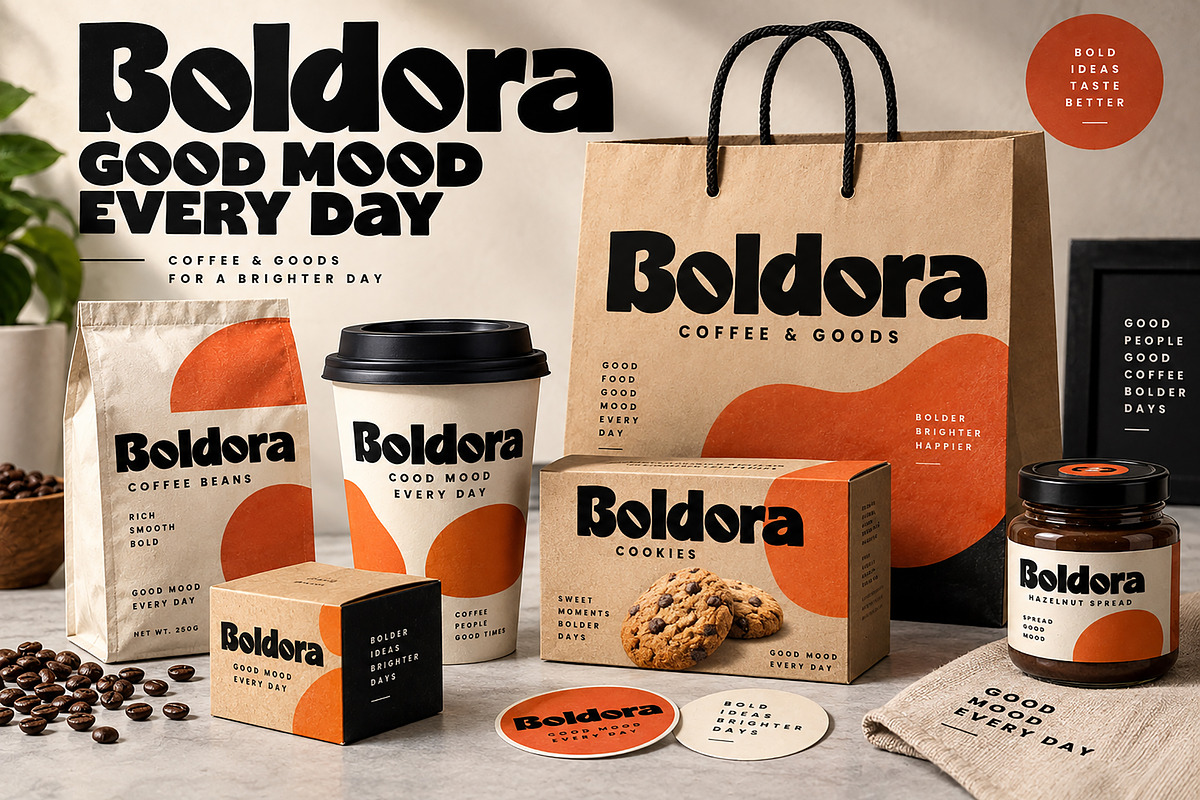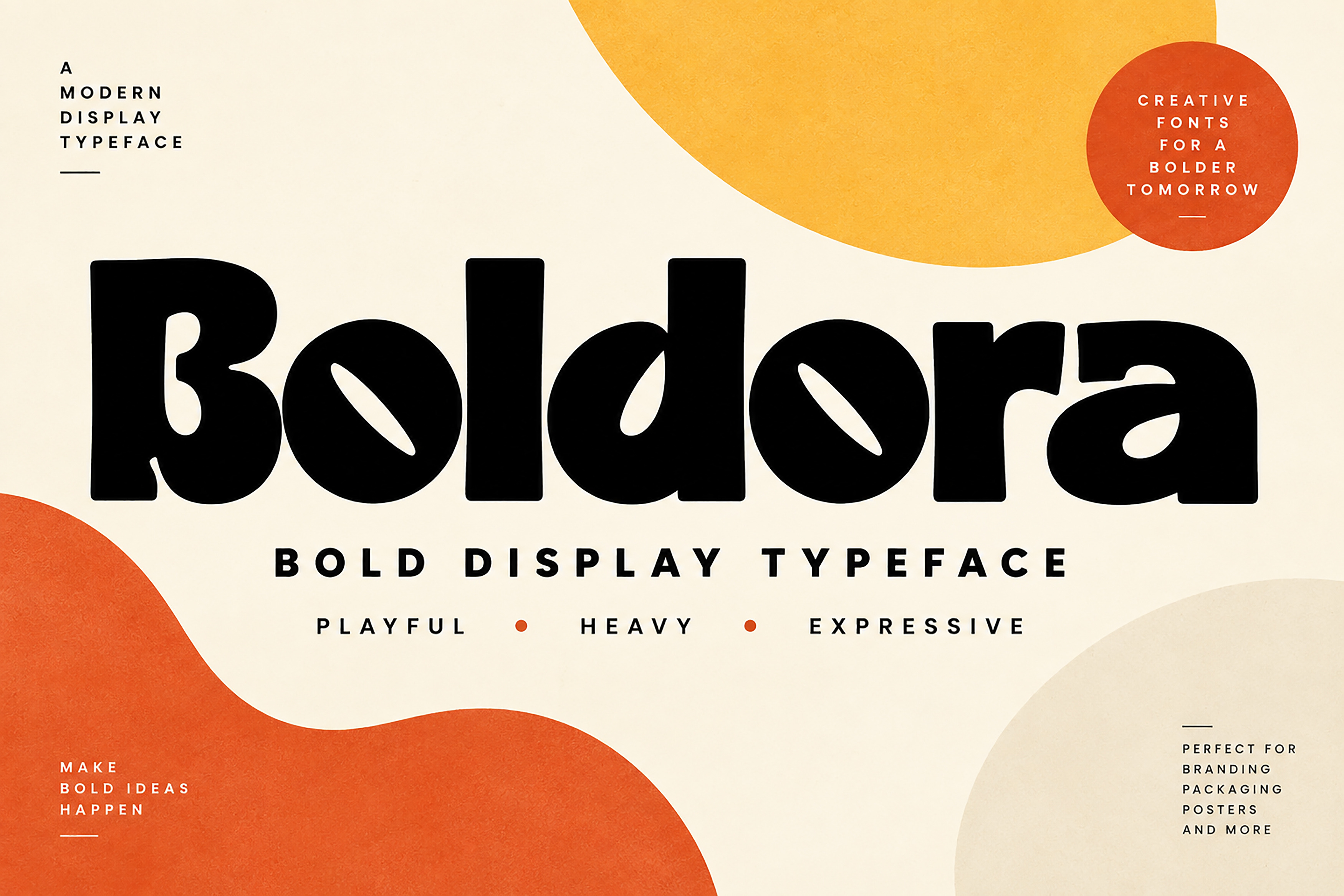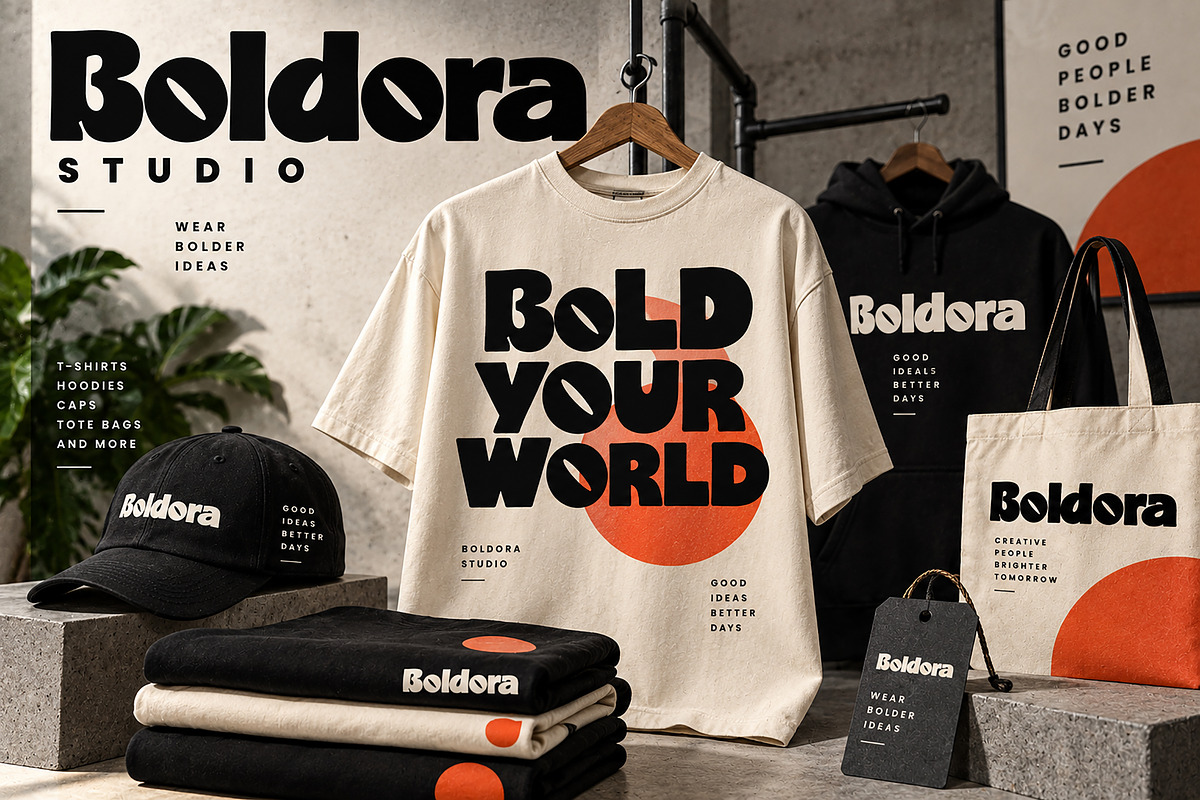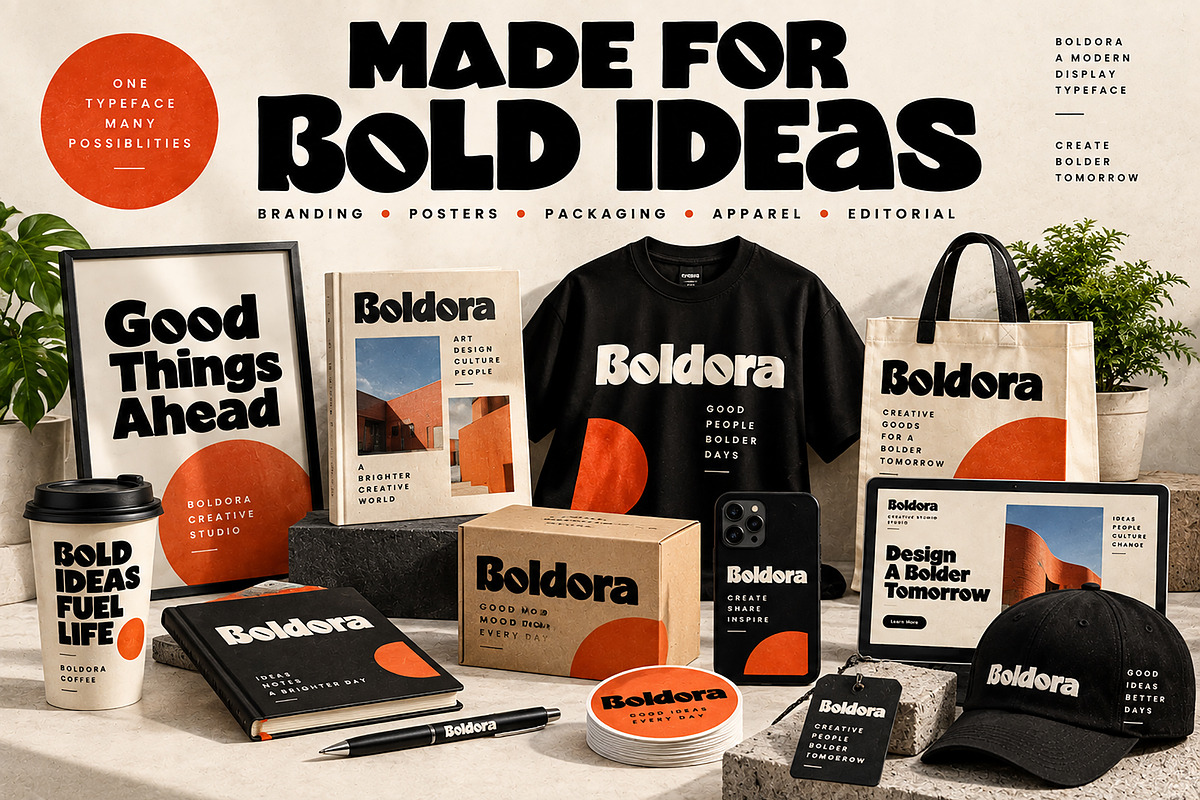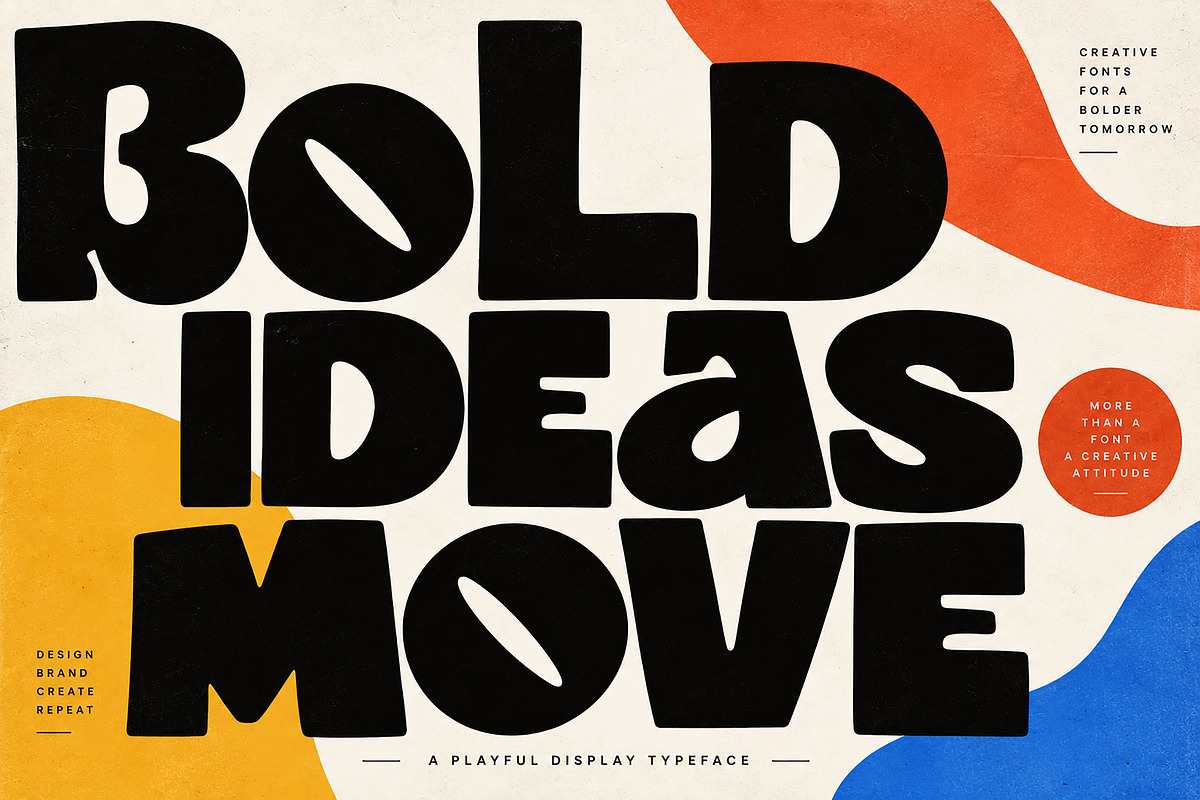
Boldora – Bold Playful Display Font
Boldora is a bold and playful display font designed to make your typography stand out. Featuring chunky letterforms, rounded shapes, and distinctive organic details, Boldora brings a fun, expressive, and confident personality to creative projects.
Perfect for branding, logos, posters, packaging, apparel, labels, social media graphics, editorial designs, stickers, product designs, and more.
Its strong and eye-catching appearance works especially well when you need typography that feels modern, energetic, friendly, and memorable.
Logo & Brand Identity
Posters & Headlines
Apparel & T-Shirt Designs
Coffee & Food Branding
Labels & Stickers
Editorial & Magazine Design
Product Branding
Advertising & Promotional Designs
Creative Typography Projects
Font Name: Boldora
Style: Bold Display / Playful / Rounded
Type: Display Typeface
Boldora is made for designers who want to create bold, playful, and memorable visual identities with a strong typographic presence.
Make your ideas bolder with Boldora.